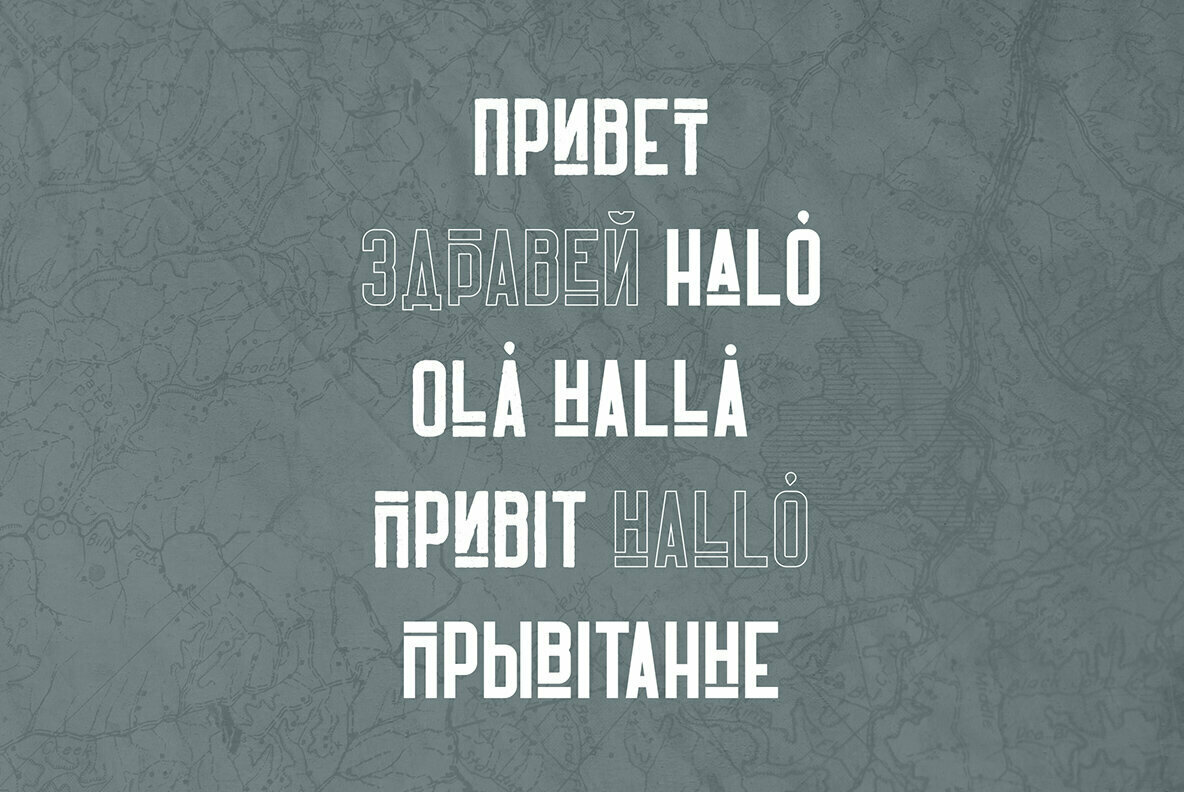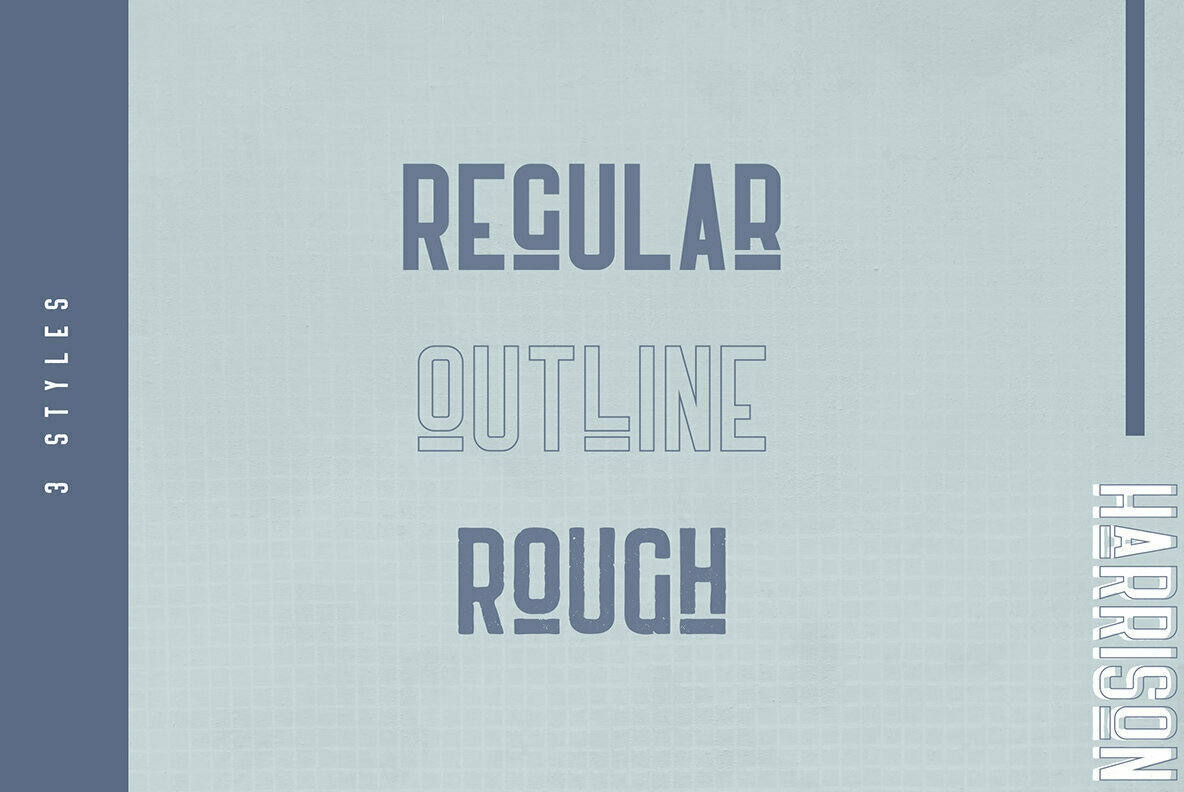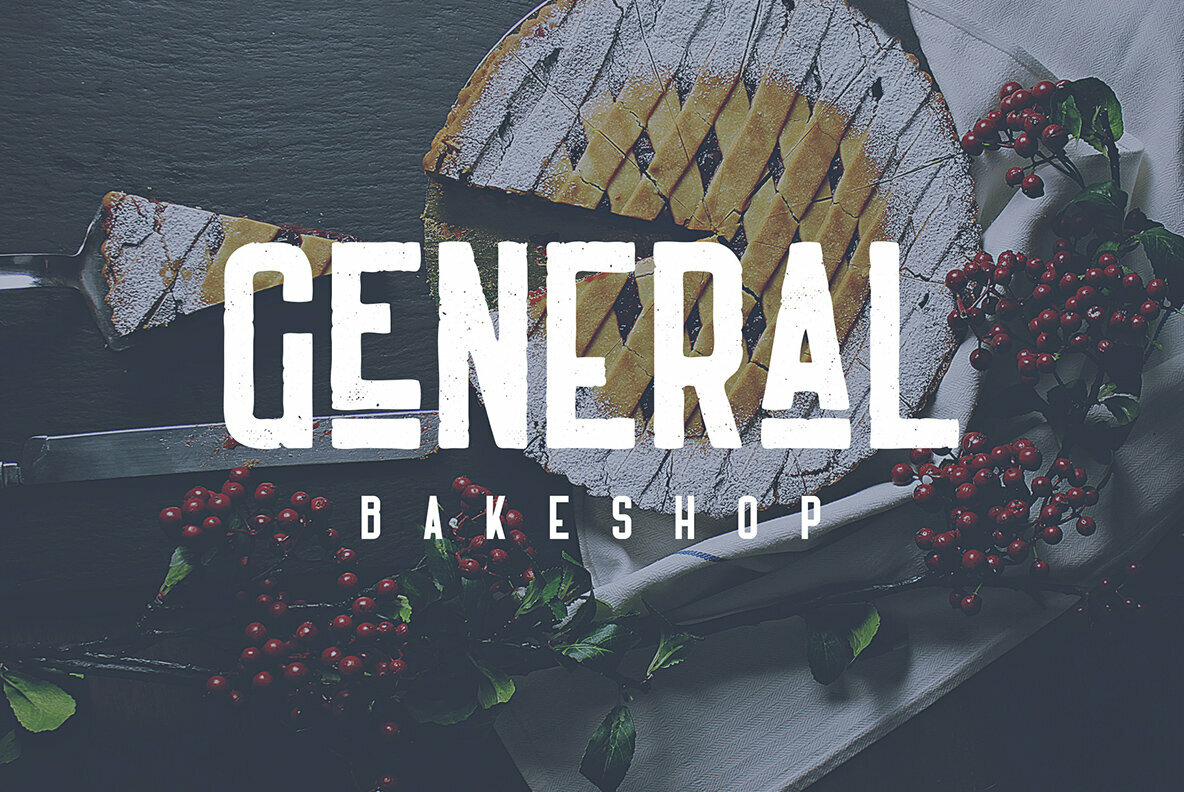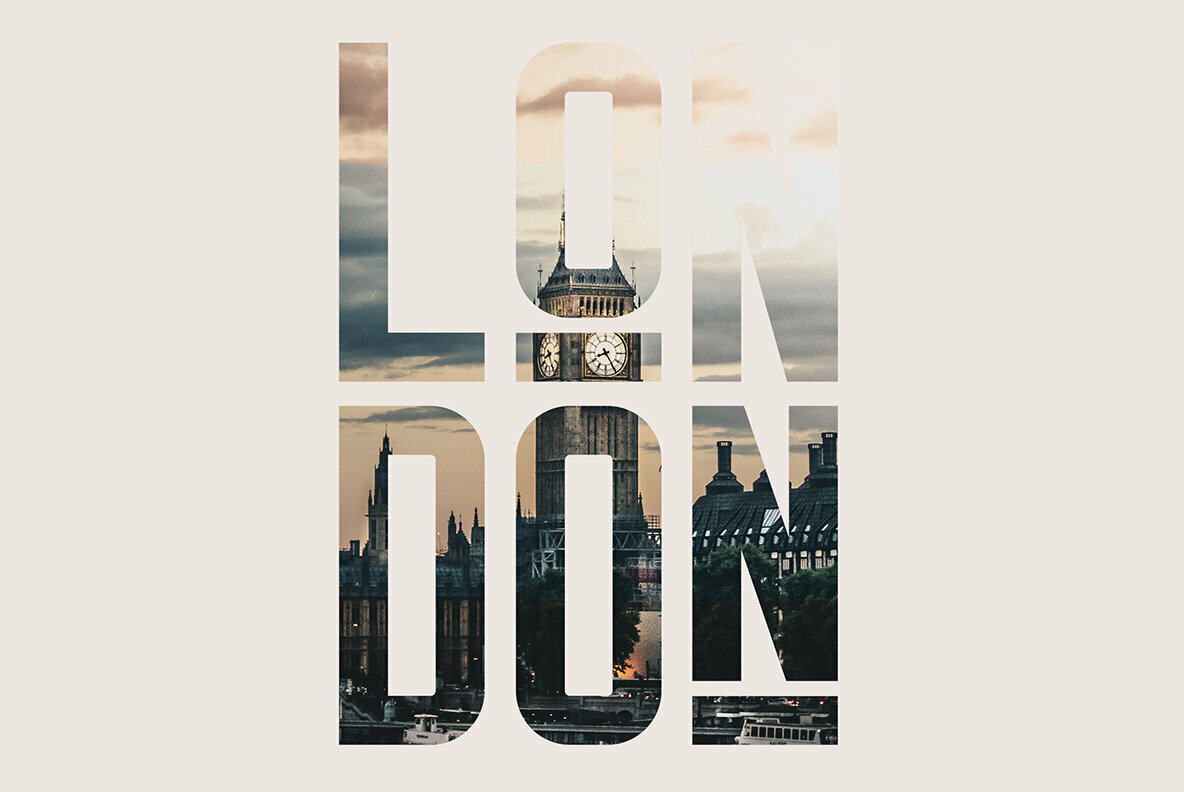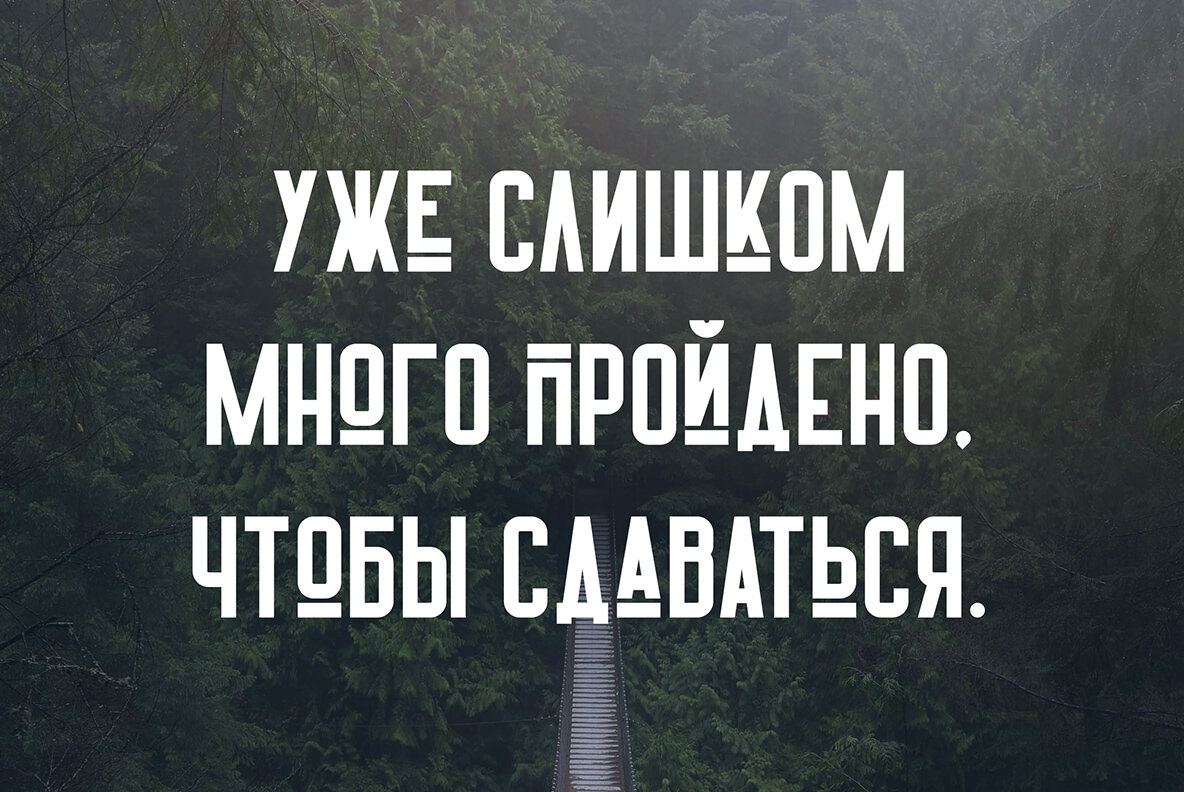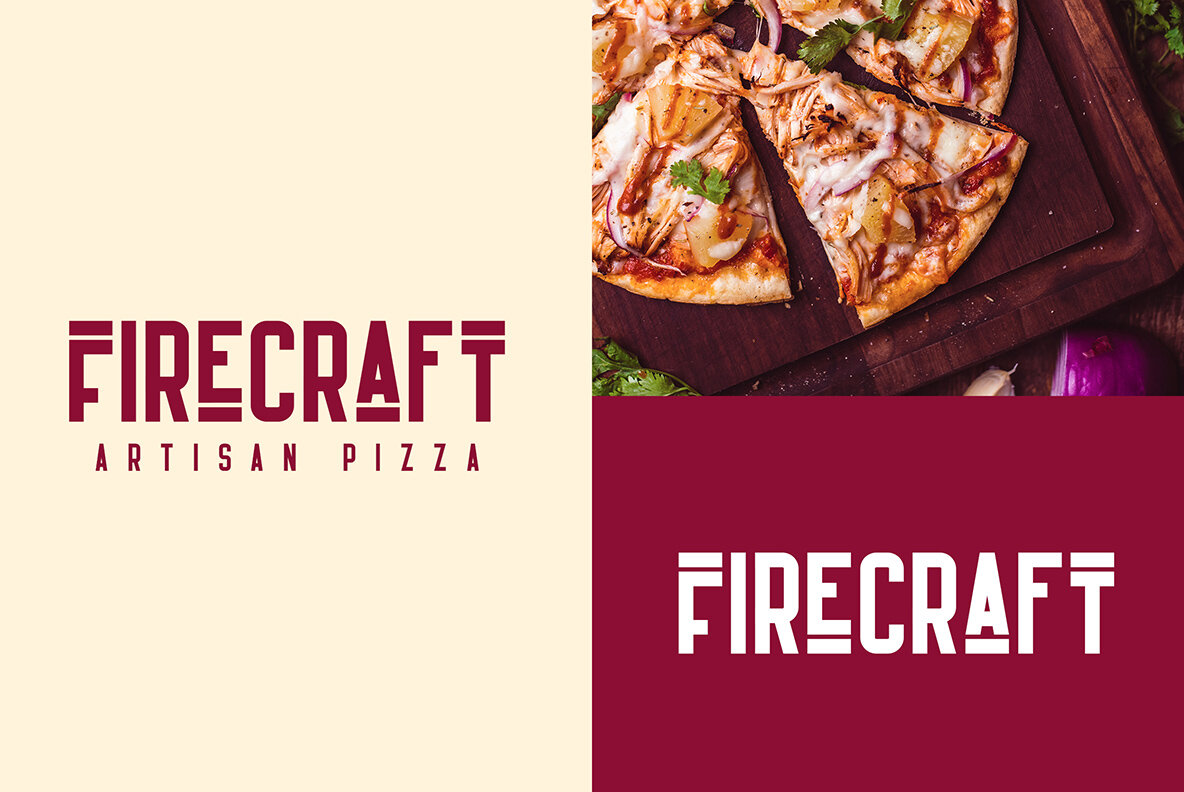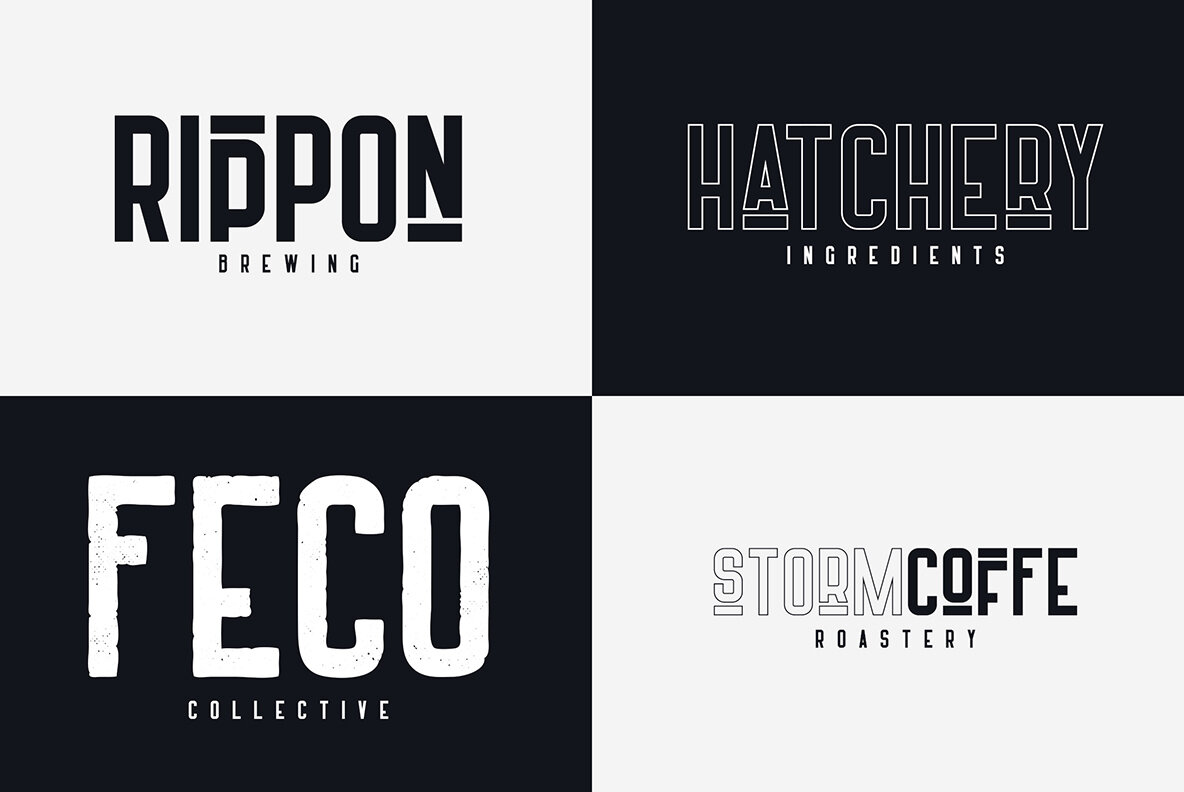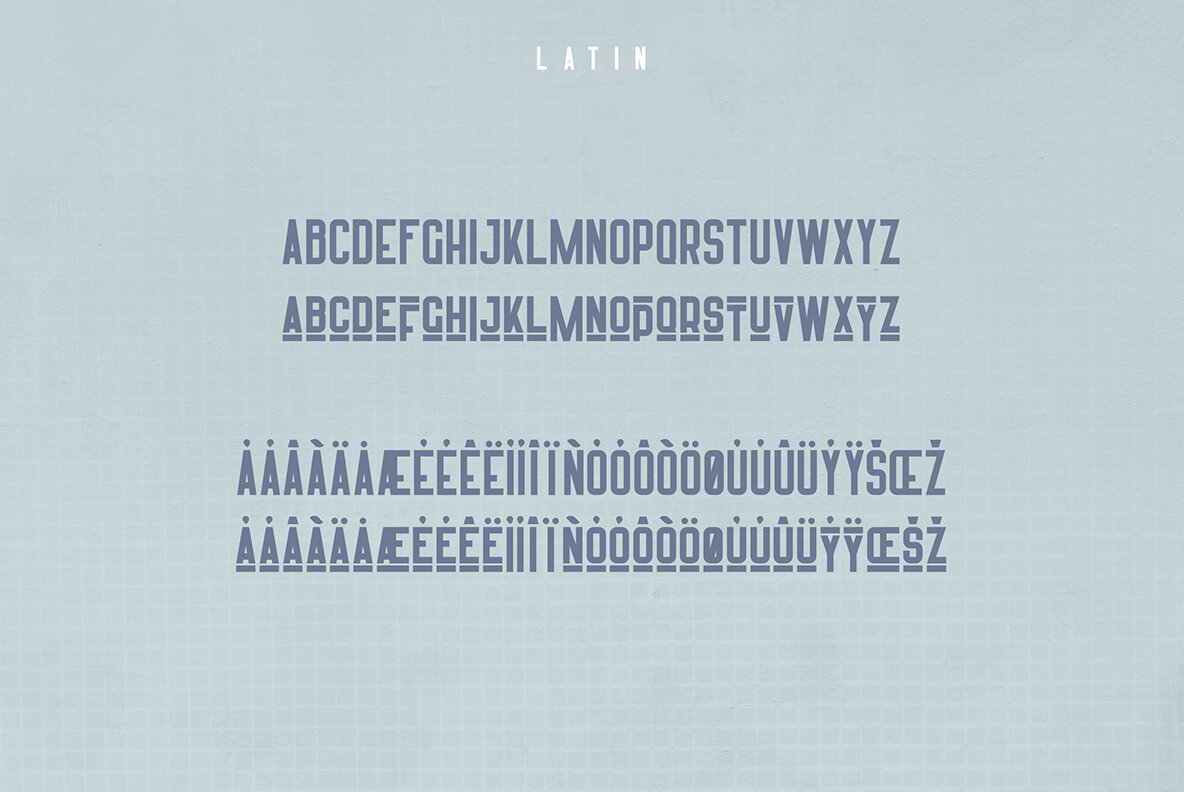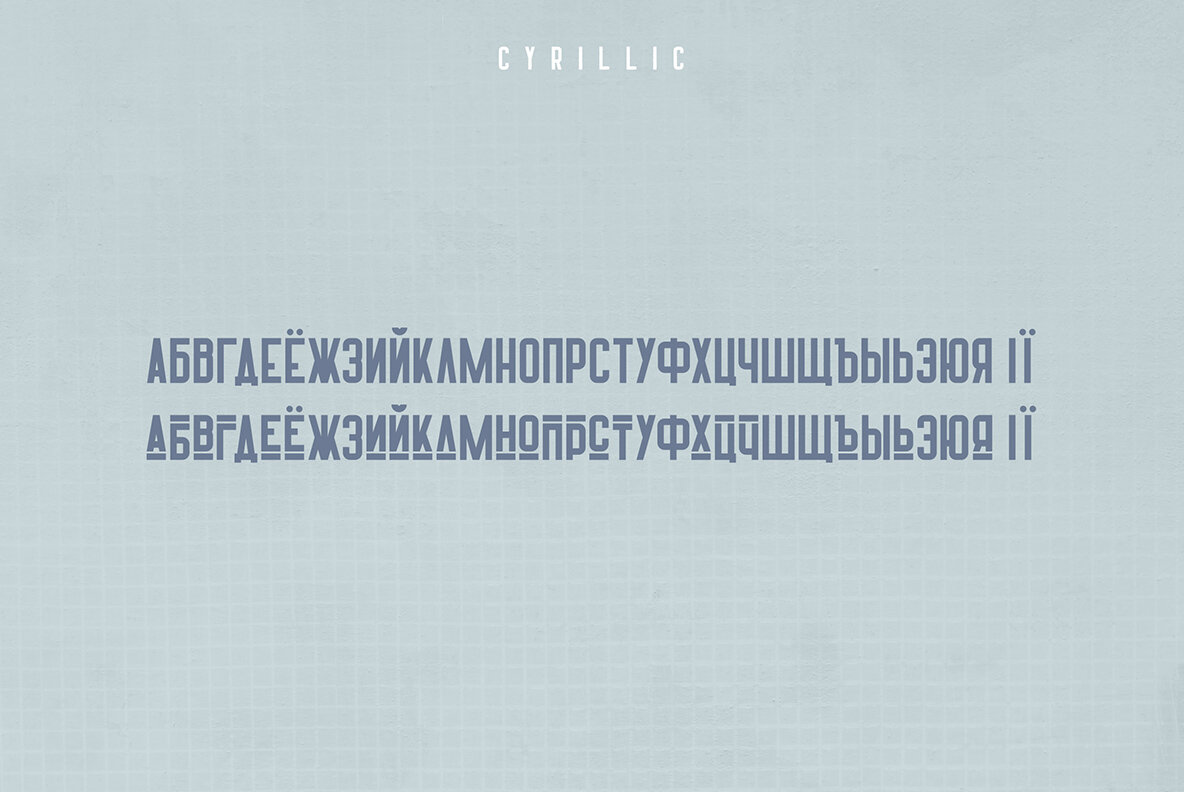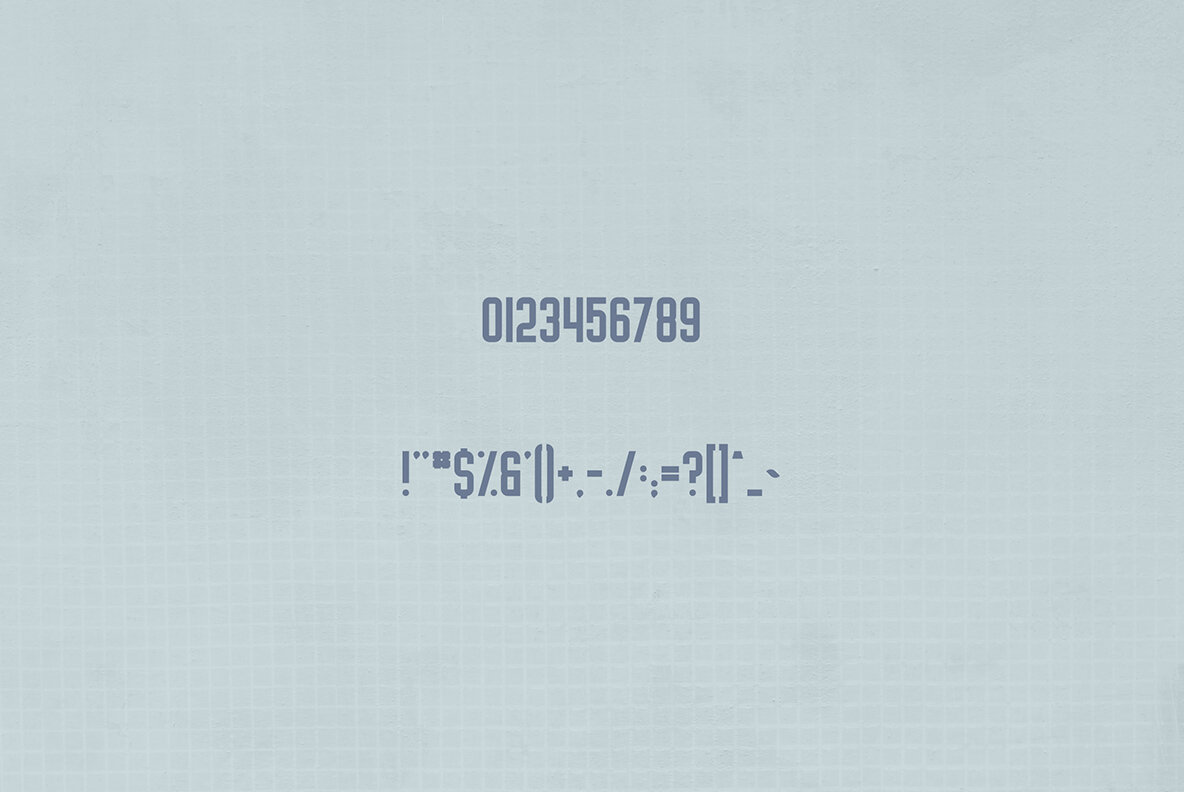
Harrison Font
Harrison Regular
Harrison Outline
Harrison Rough
Immerse yourself in the nostalgic charm of Harrison, a retro typeface that offers both Latin and Cyrillic support. This bold font is available in regular, outline, and rough versions, providing a versatile option that excels in both large and small sizes. Designed for branding, homeware, and packaging, Harrison effortlessly lends itself as a striking text overlay on any background image.Harrison: Bold Retro Type with Multilingual Versatility